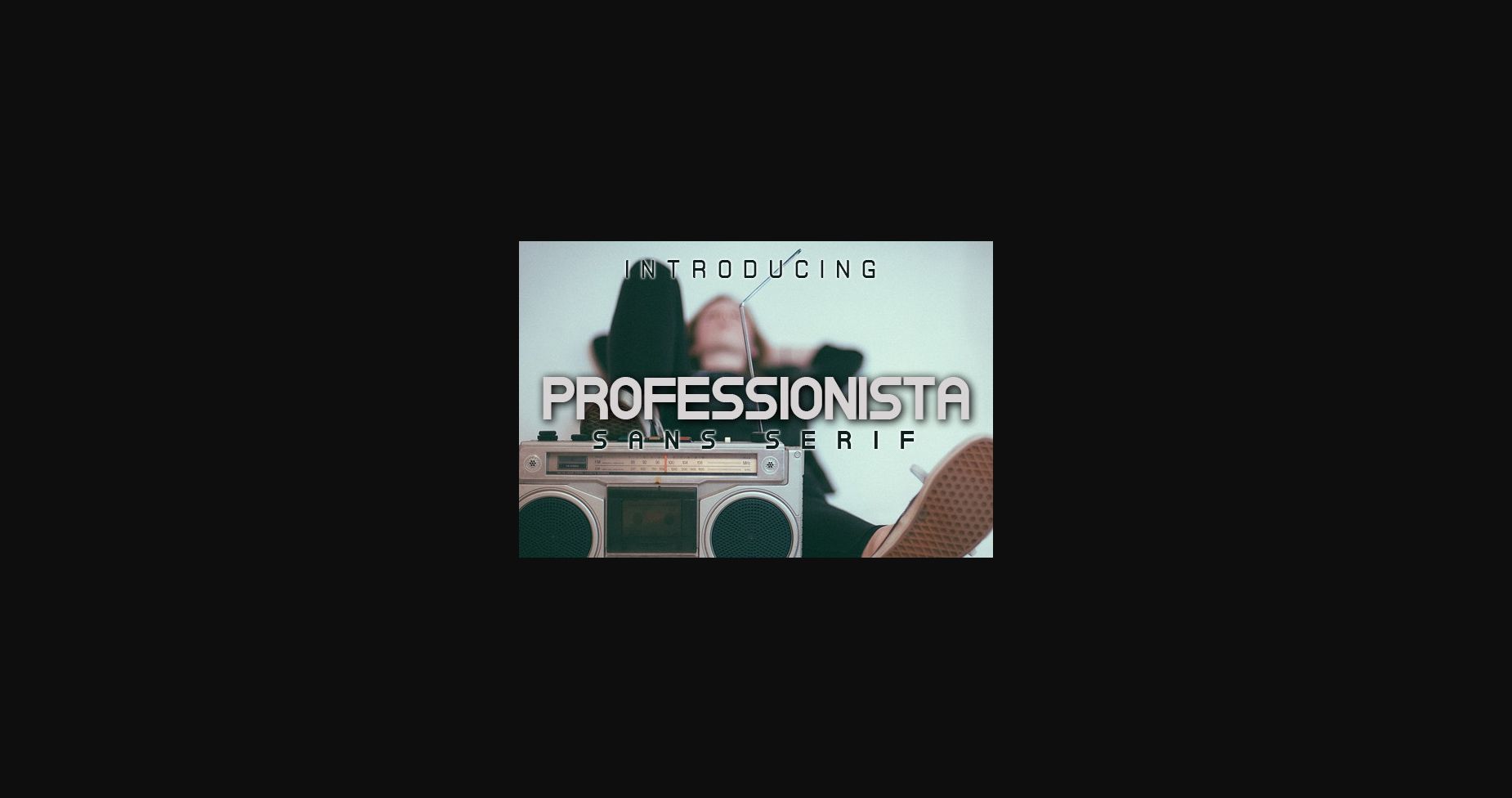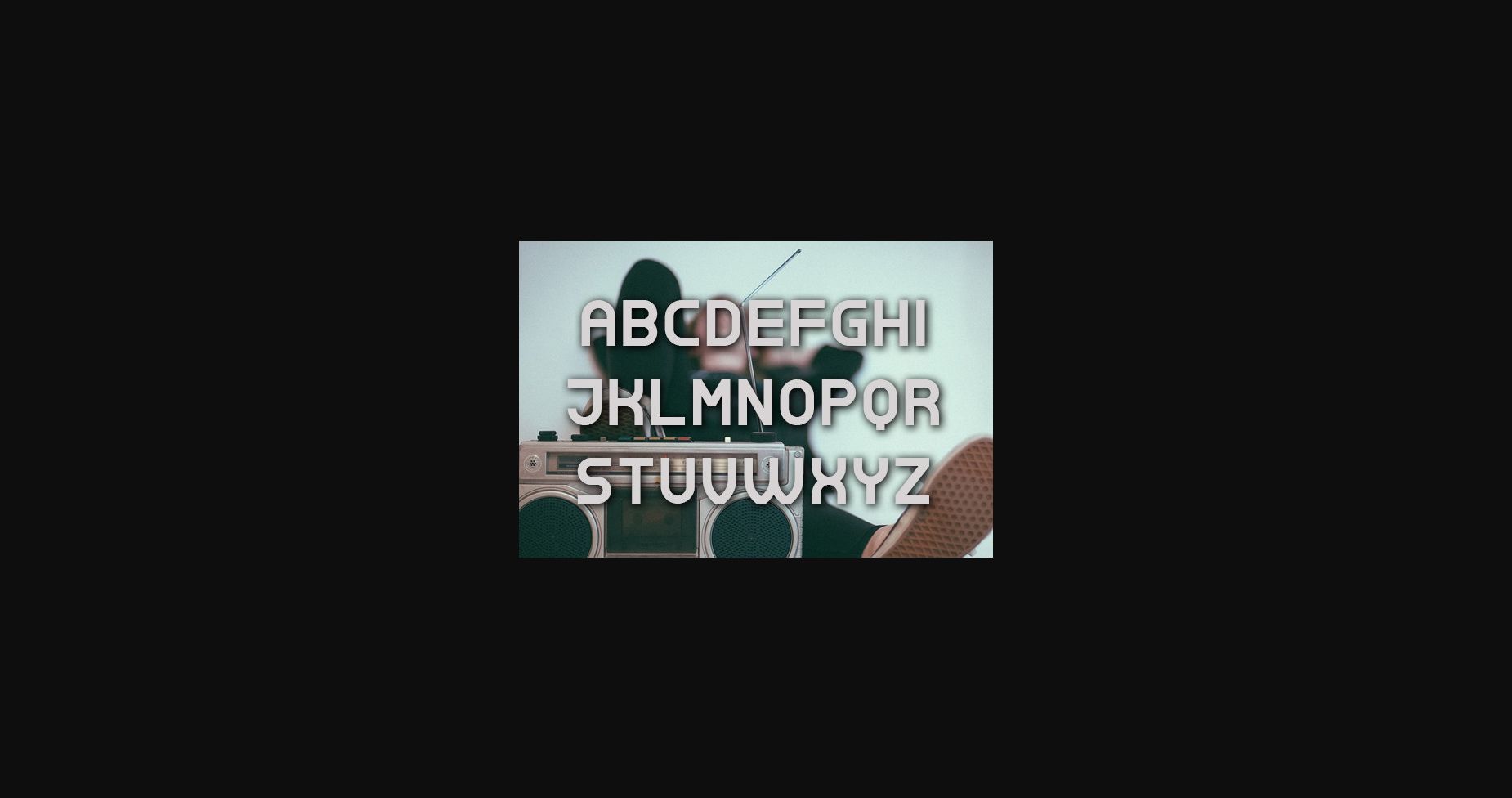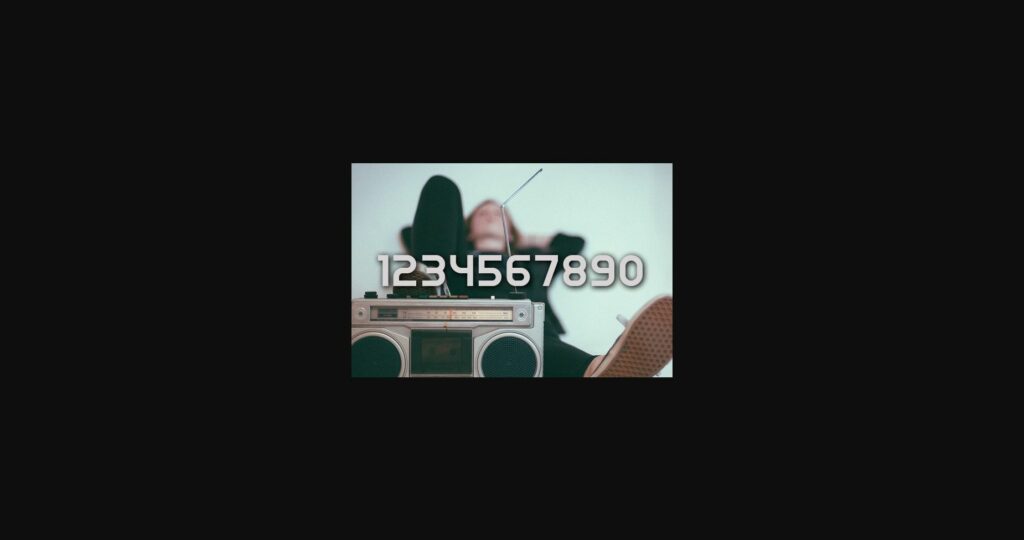
Professionista is a modern and elegant sans-serif font. Due to its antique vibe, the font can fit a multitude of projects. Use this font on posters, crafts, headlines, and social media posts, to add a touch of originality.